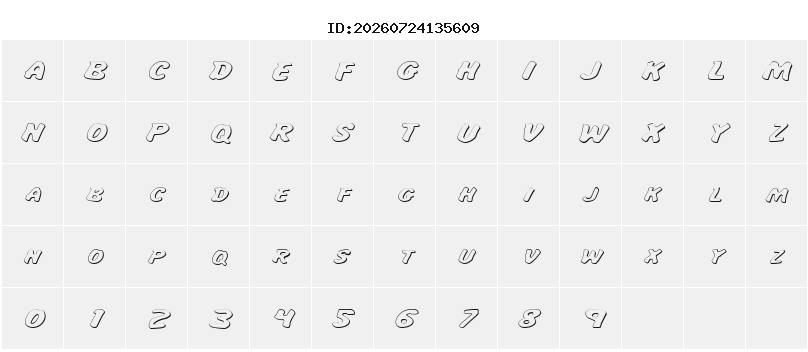
• Font Name: Miss Amanda Shadow ItalExp
• Font Style: Shadow ItalExp
• Full Font Name: Miss Amanda Shadow ItalExp
About Miss Amanda Shadow ItalExp.ttf
Miss Amanda Shadow ItalExp.ttf is a modern, elegant sans-serif font designed for ultimate readability and visual harmony. Perfect for branding, headlines, web design, and print materials.